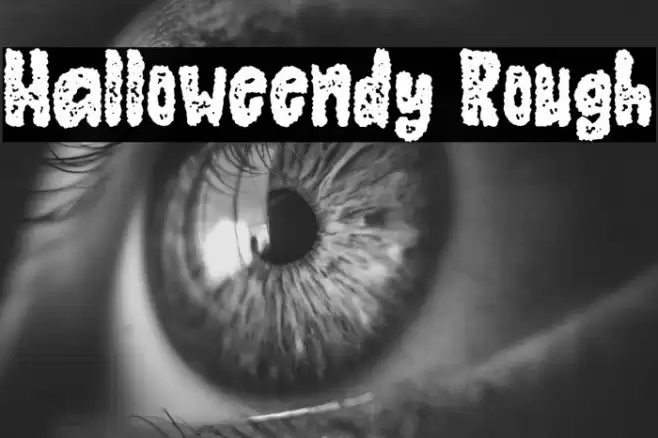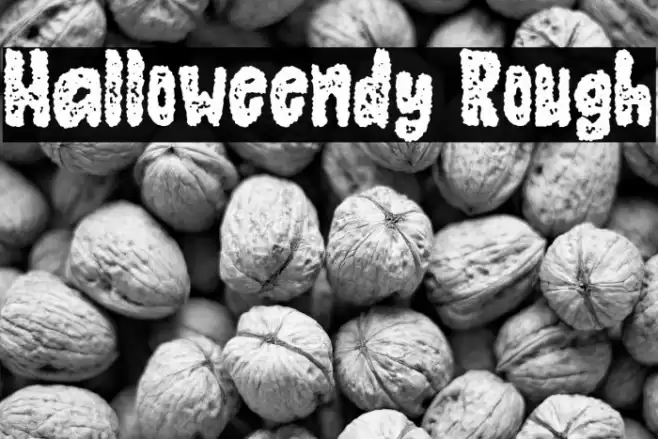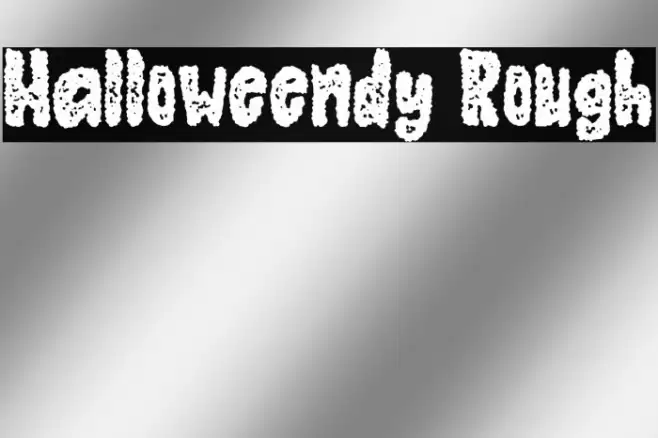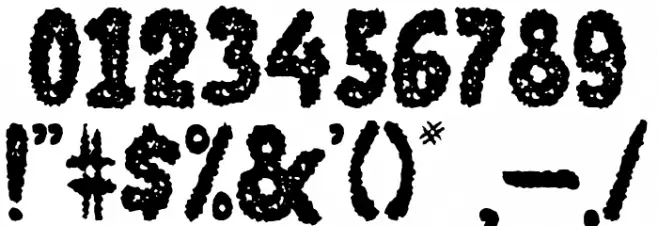
Halloweendy Rough Font
Halloweendy Rough Description
This font features a playful and rough texture, reminiscent of a spooky or Halloween theme. The characters are bold and have an uneven, hand-drawn appearance, with a unique texture that adds a sense of movement and energy. The uppercase and lowercase letters maintain a consistent style, with rounded edges and a slightly irregular form that enhances its whimsical and decorative nature. The numerals and special characters follow the same design principles, making the font cohesive and versatile for themed projects.
A playful, rough-textured font with a spooky, hand-drawn style from Regular fonts.
- Proposed Projects: Ideal for Halloween-themed designs, party invitations, posters, and creative projects that require a fun and eerie touch.